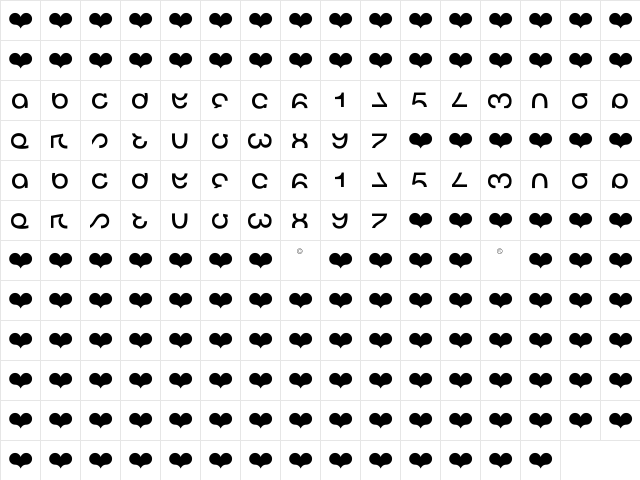
DS NSW55 Regular
Design Context for DS NSW55 Typeface
DS NSW55 offers clean, dependable letterforms without strong stylistic allegiance, making it a practical choice for designers who need flexibility.